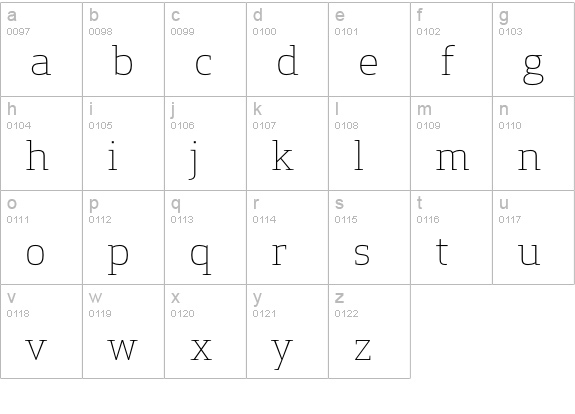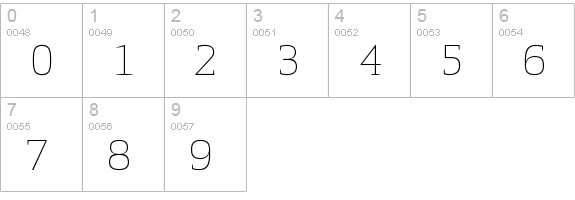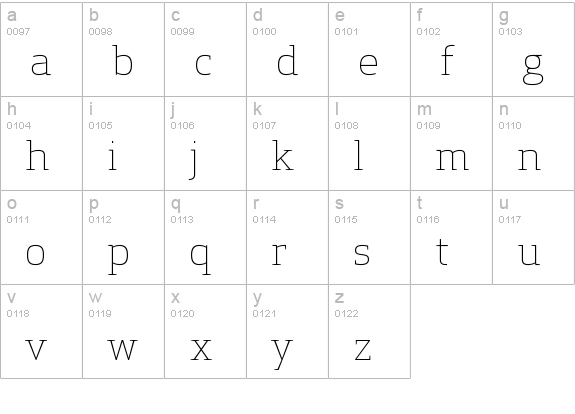
ApexSerif-Light is a refined, elegant variant in the ApexSerif typeface family \xE2\x80\x94 well suited to elegant body text, refined sub-headings, and luxury branding.
ApexSerif-Light is a sleek and elegant font that exudes sophistication and modernity. With its clean lines and subtle serifs, this typeface is perfect for adding a touch of refinement to any design project. The light weight of the font gives it a delicate and airy appearance, making it ideal for use in headings, titles, and other prominent text elements. The best part? ApexSerif-Light is available for free download at FontsMarket.com. This means you can easily access this stylish font and incorporate it into your creative work without any cost. Whether you're designing a website, creating a logo, or working on a print project, ApexSerif-Light is a versatile choice that will elevate your designs to the next level. Download it today and start exploring the endless possibilities this beautiful font has to offer.